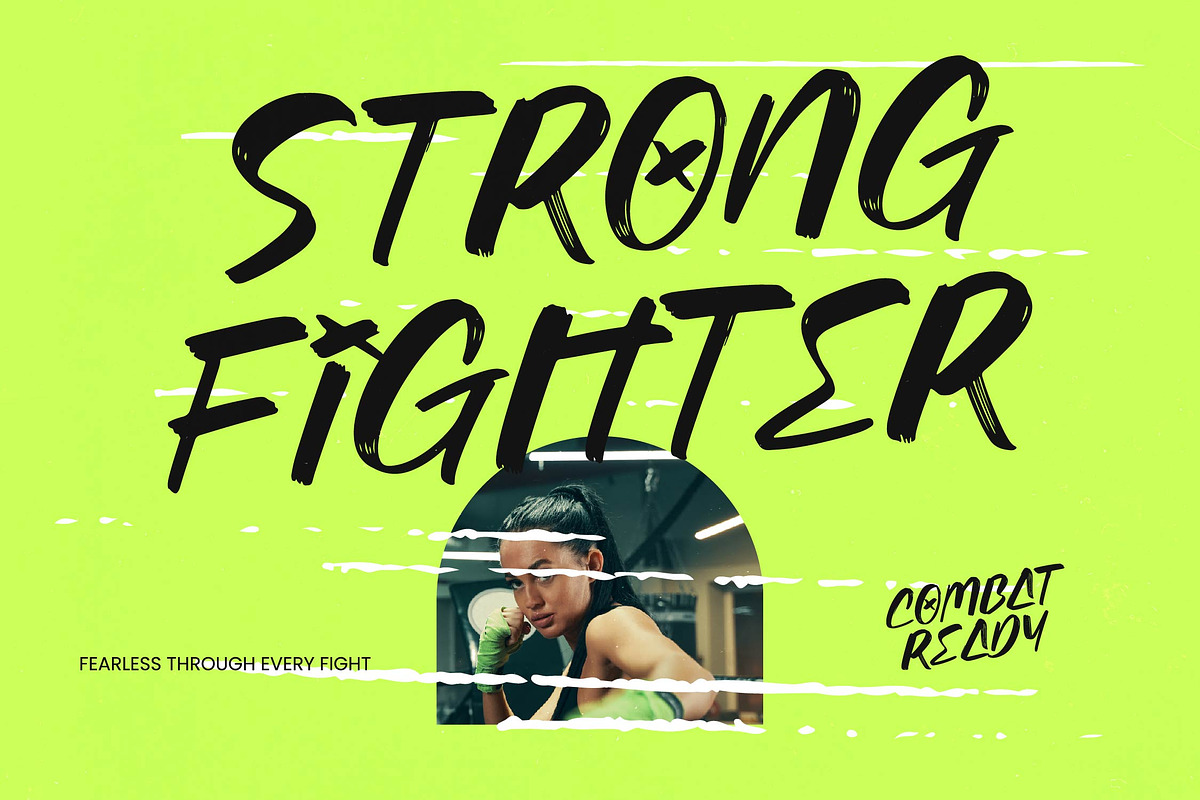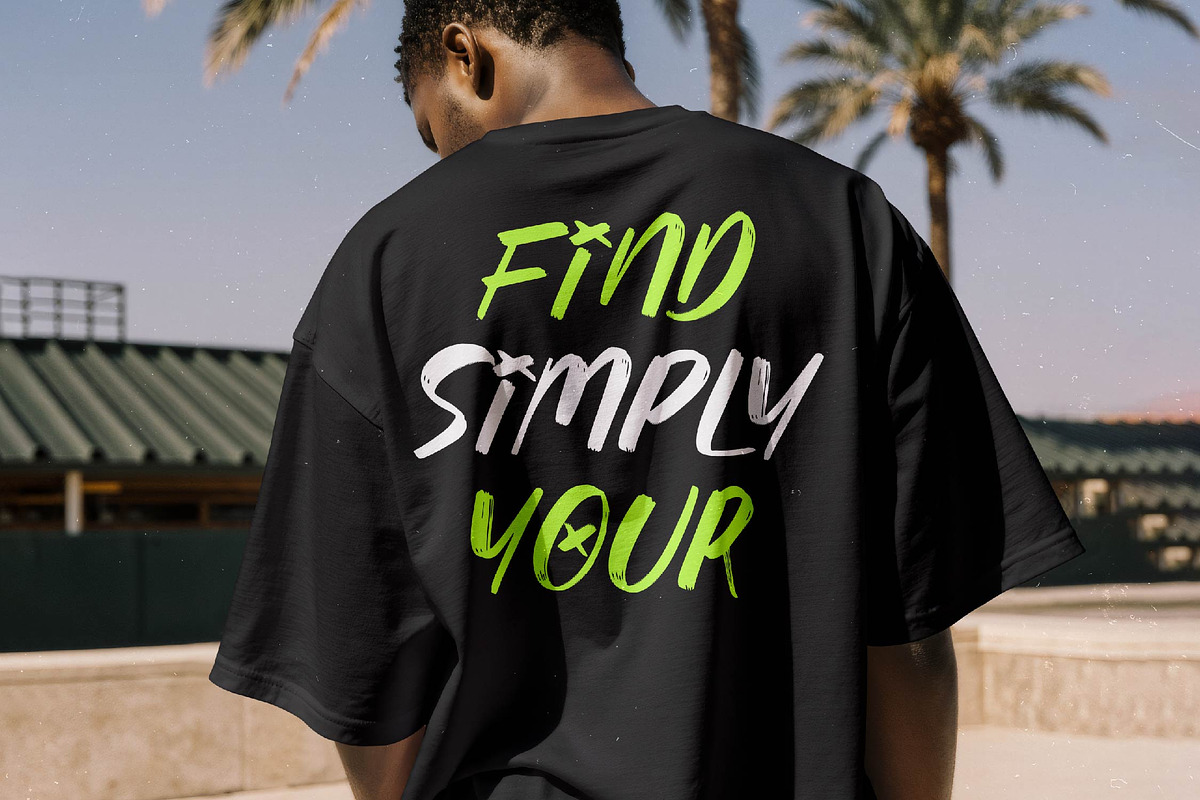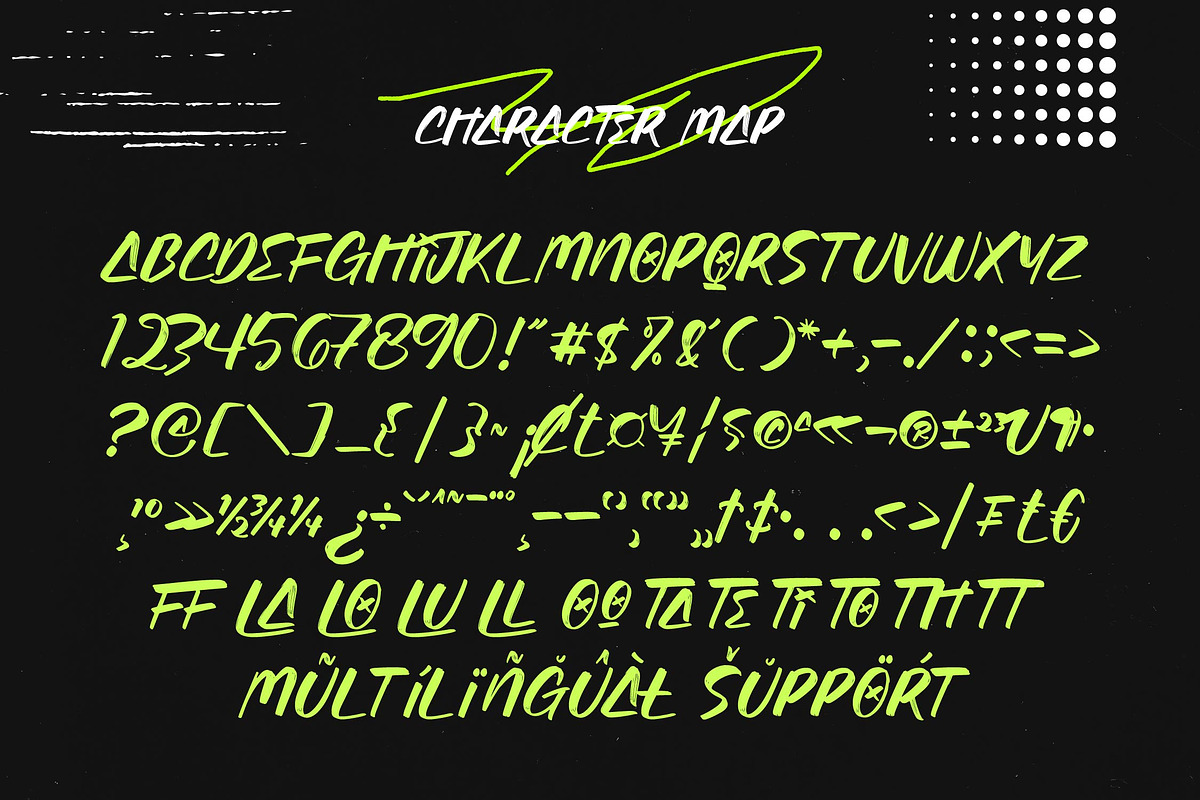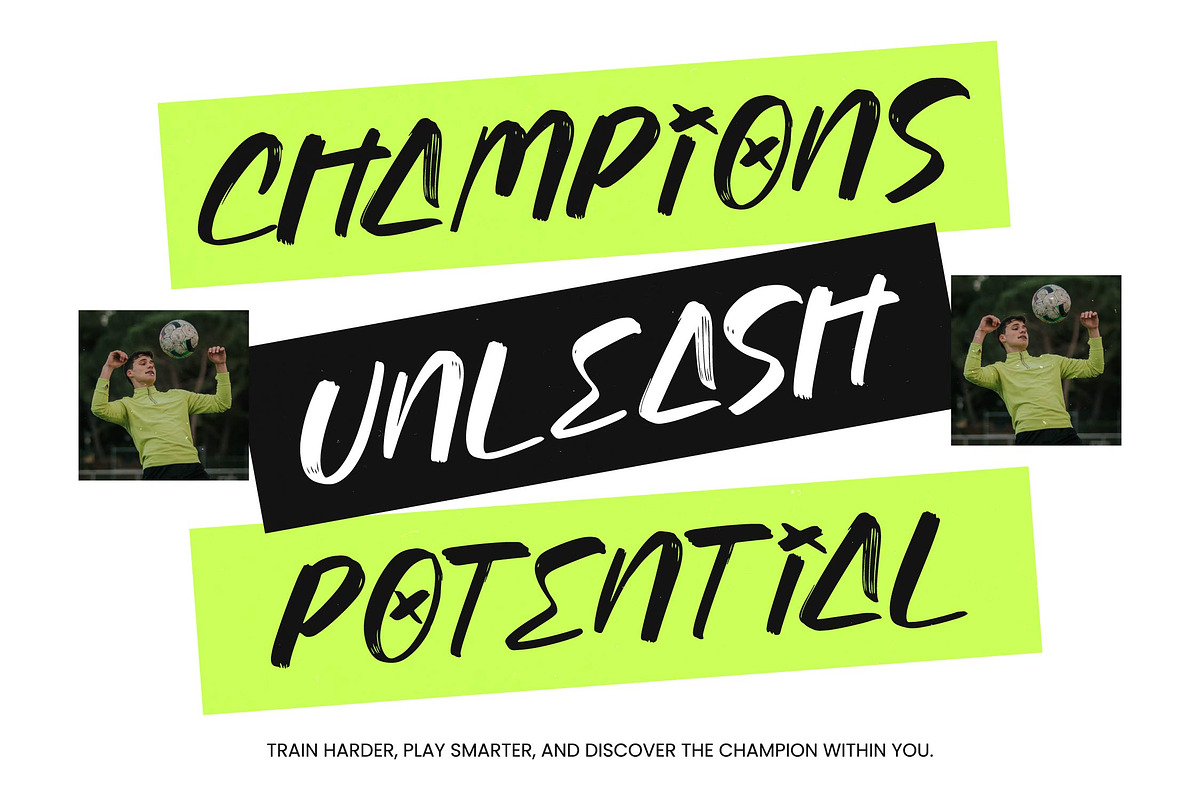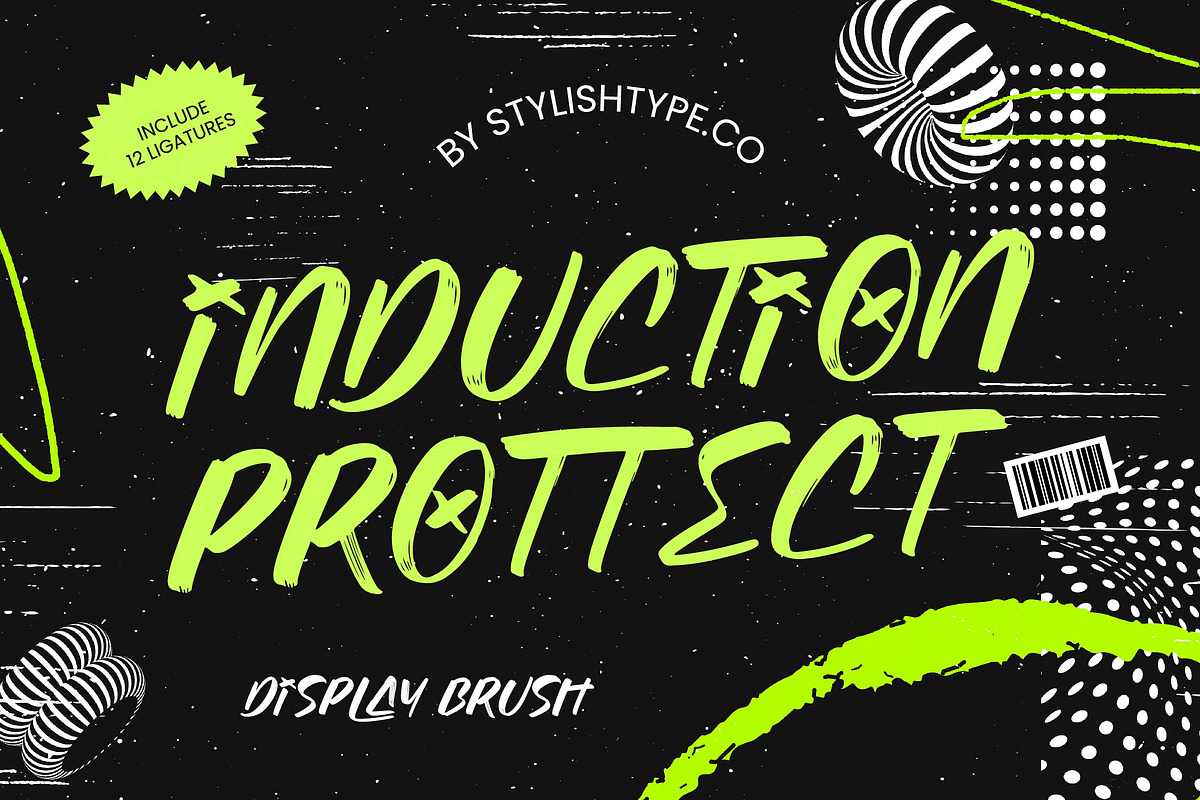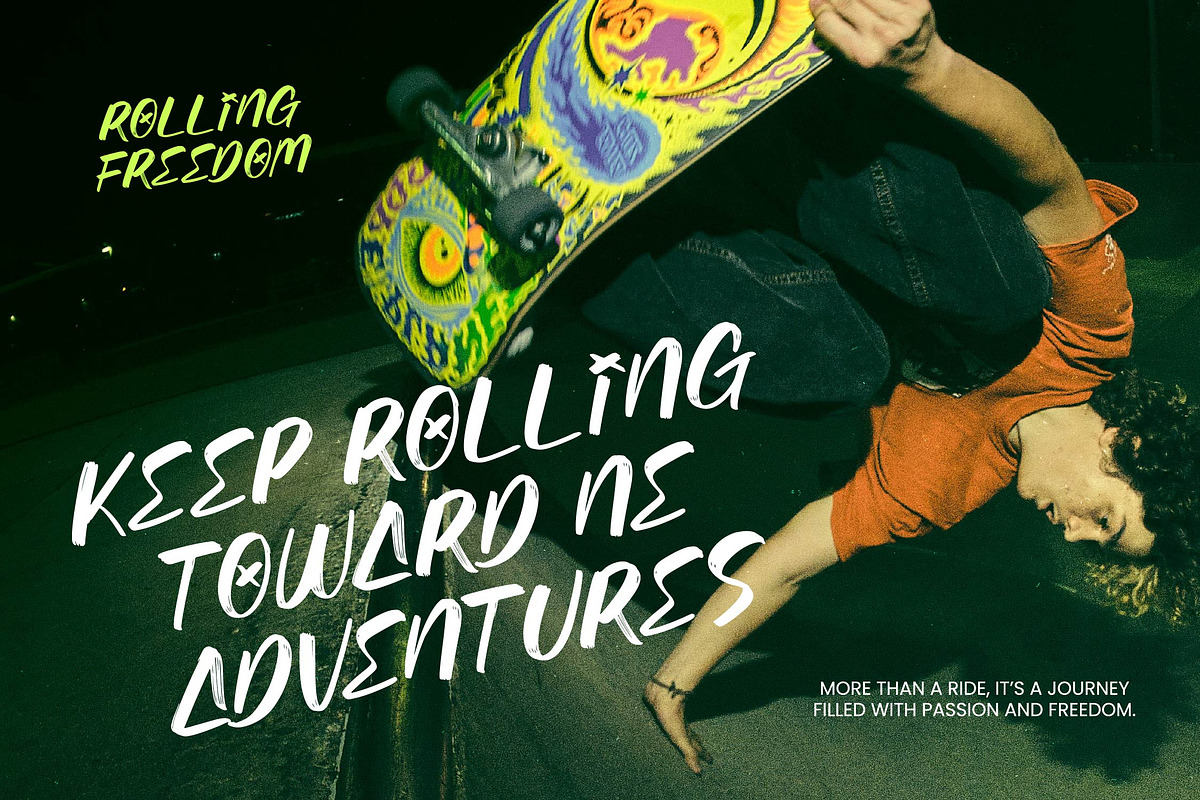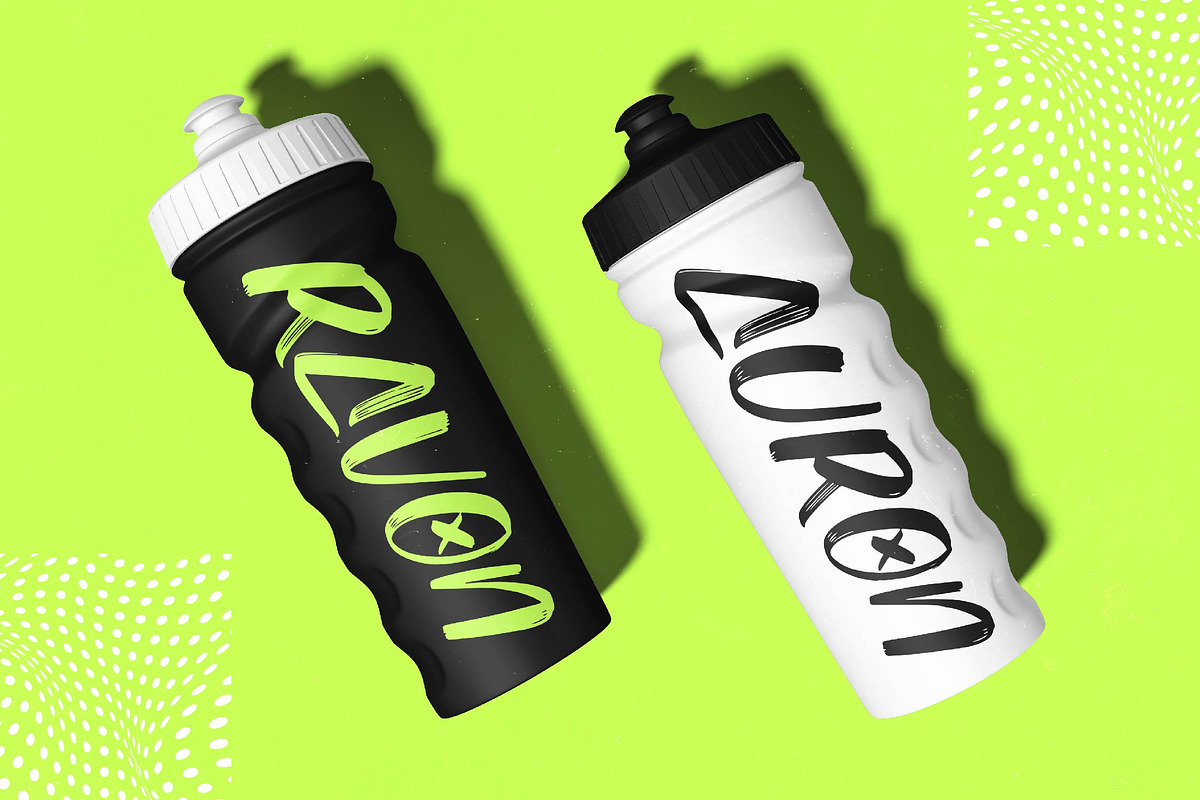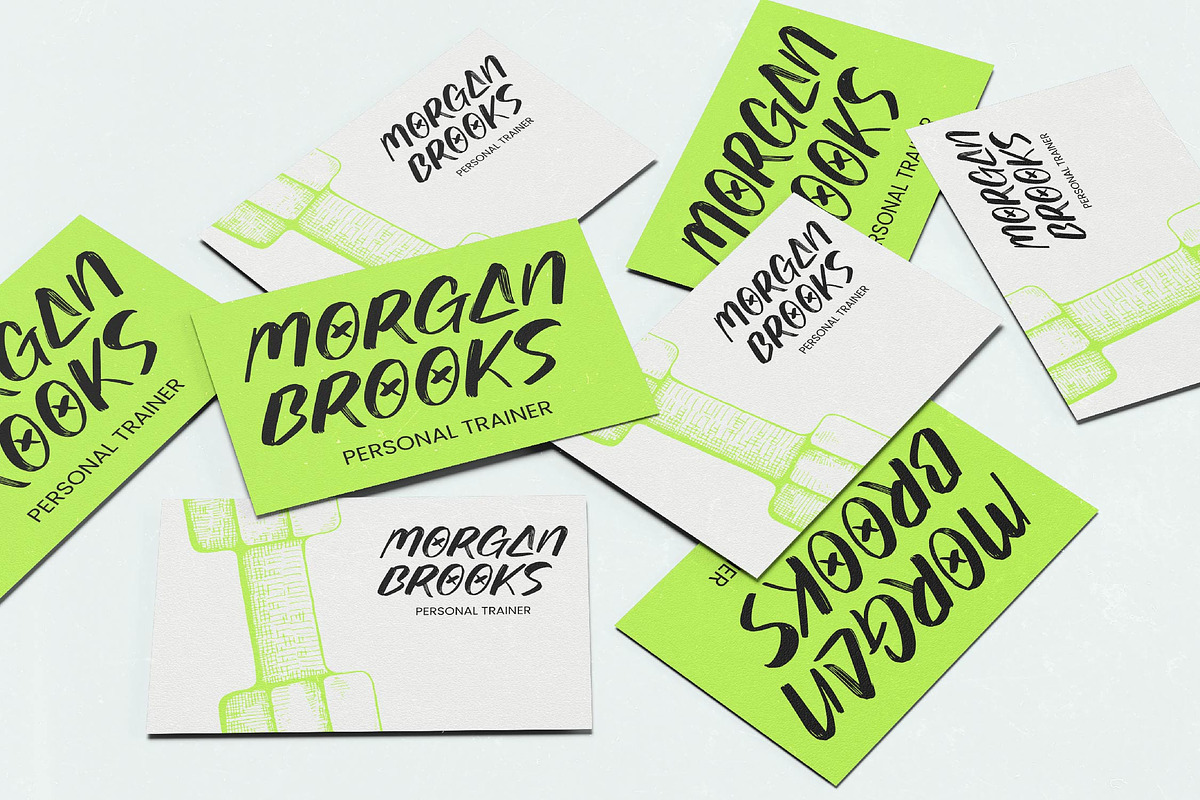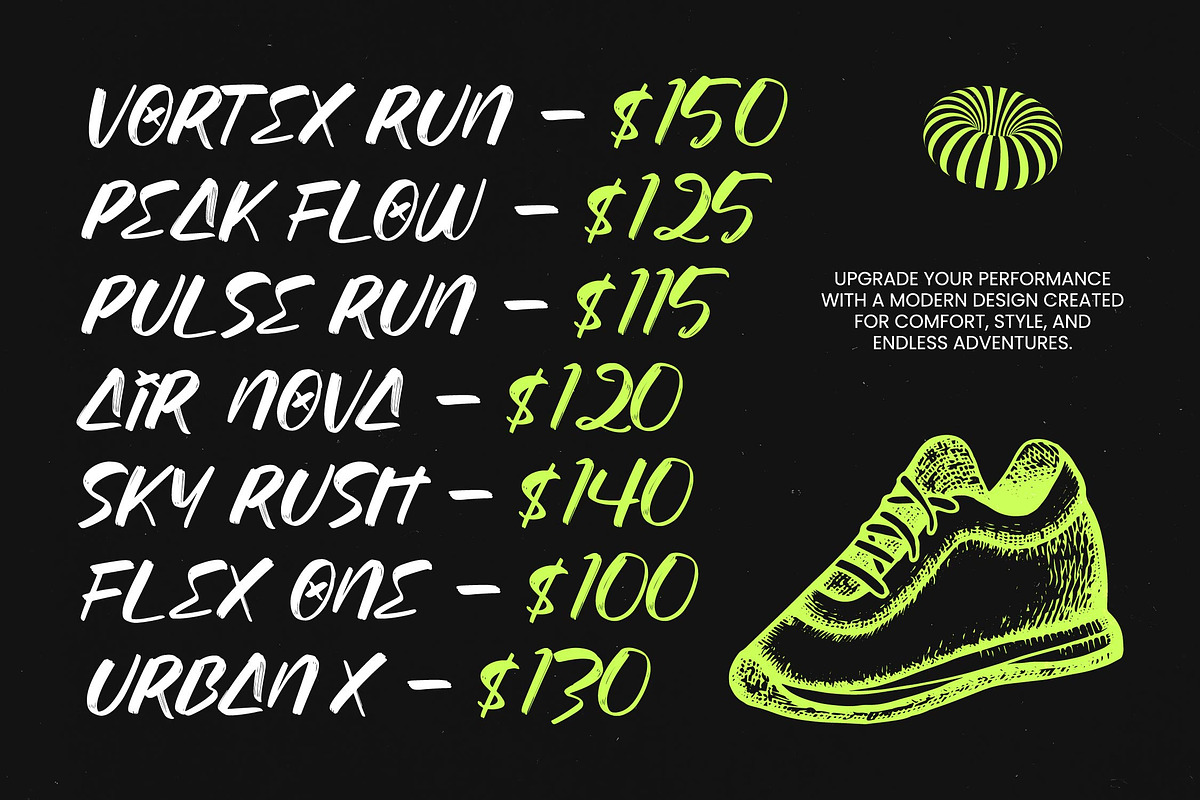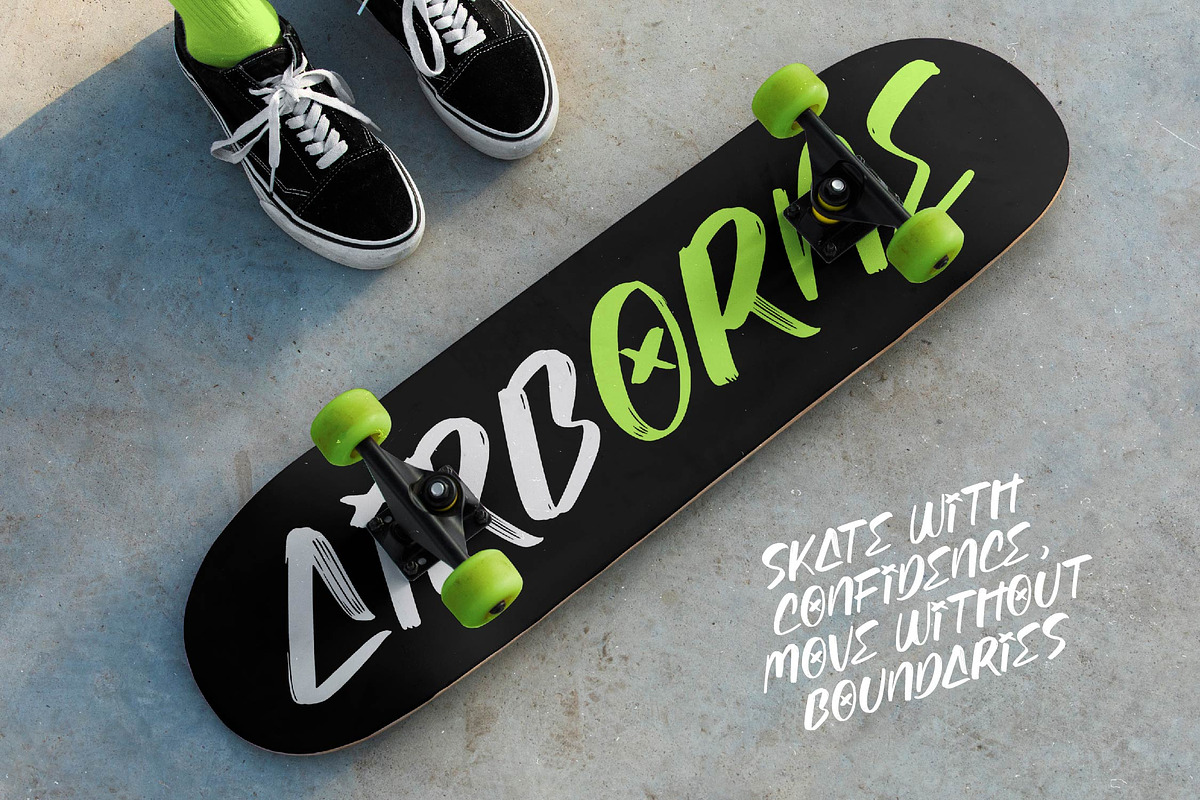
Induction Prottect Display Brush
Induction Prottect - Display Brush , Unleash raw creative energy with Induction Prottect - Display Brush, a powerhouse typeface designed to command immediate attention. This expressive brush font captures the authentic spirit of street-style typography, blending hand-drawn textures with a high-impact aesthetic. Its bold, fluid strokes provide a kinetic visual rhythm that is perfect for designers looking to inject a sense of rebellion and modernity into their visual identities.
Global accessibility is at the heart of this typeface's engineering. With its extensive multilingual support, Induction Prottect - Display Brush adapts seamlessly across global markets, making it incredibly versatile for international projects. Whether you are targeting a local niche or an international audience, the robust character set ensures your brand message remains visually consistent and impactful across various languages and regions.
Elevate your compositions with the built-in artistic features of this dynamic typeface. To ensure your designs never feel repetitive, Induction Prottect - Display Brush includes 12 specialized ligatures that mimic the natural flow of hand-painted lettering. These professional-grade OpenType features allow for custom typographic layouts, providing a bespoke look that rivals custom-lettered artwork without the added production time.
Engineered for maximum versatility, Induction Prottect - Display Brush is the ultimate creative tool for a wide range of industries. It is the perfect choice for luxury streetwear branding, gritty sports graphics, energetic event posters, and disruptive product packaging. From music industry visuals to digital gaming assets, this premium display font delivers a professional edge that ensures your brand stands out in a crowded marketplace.